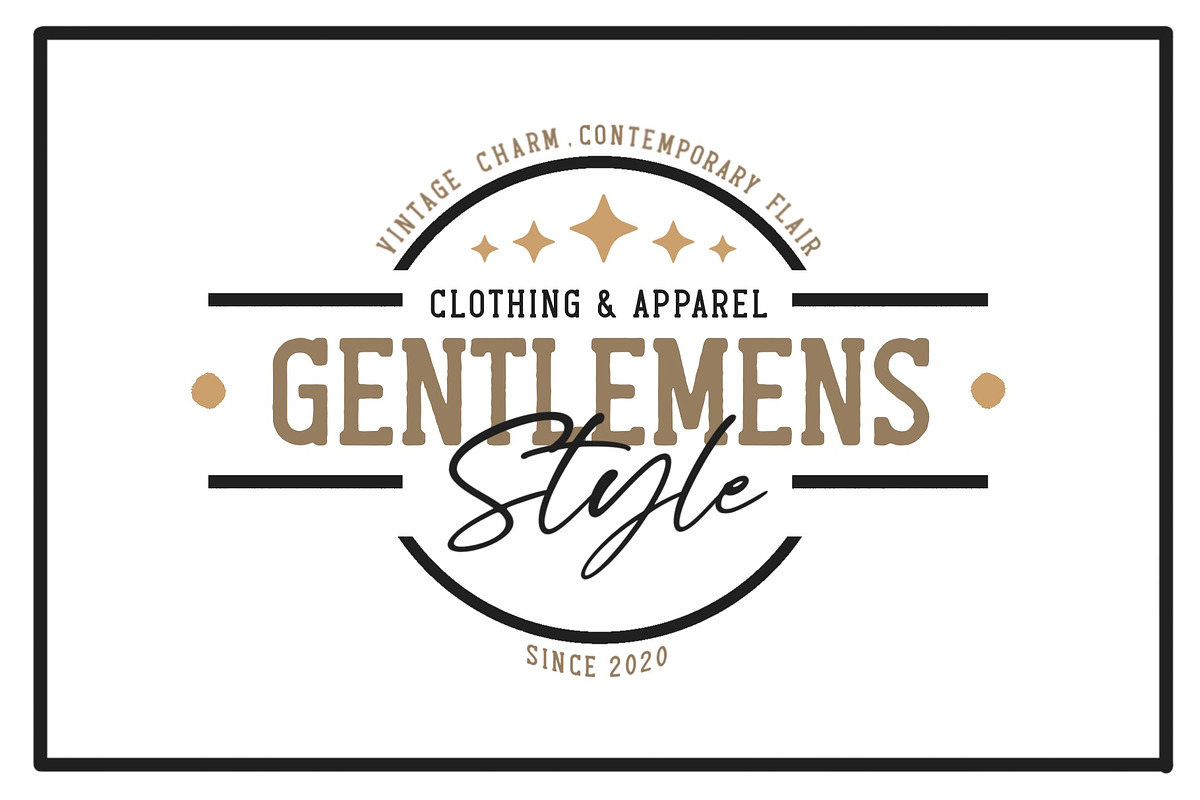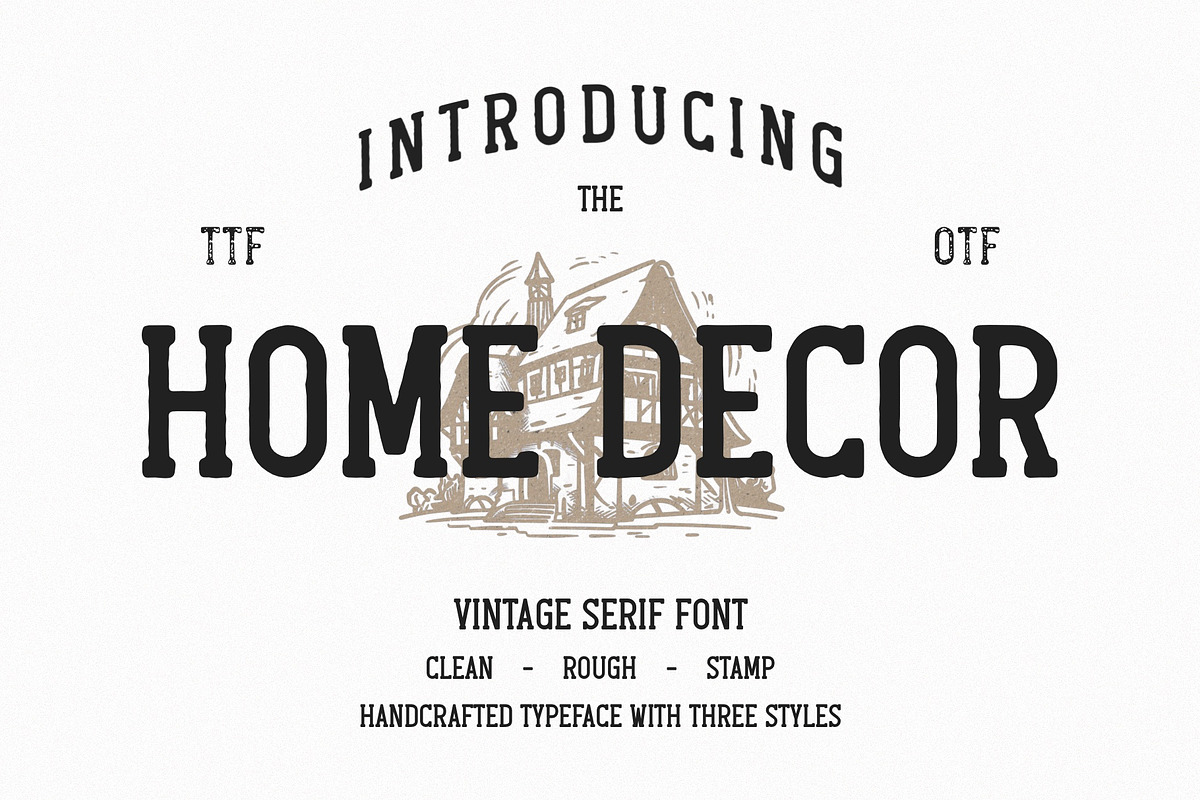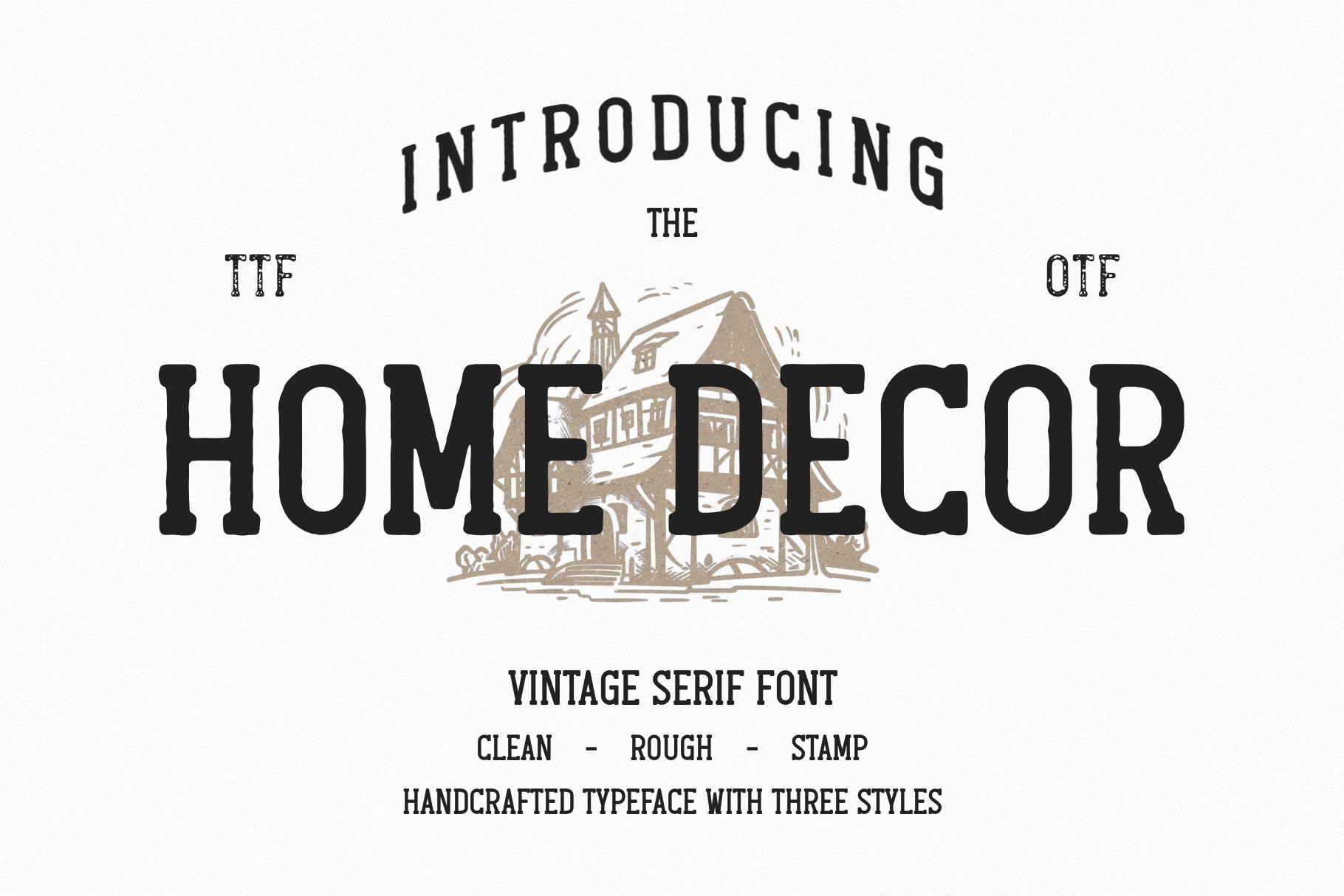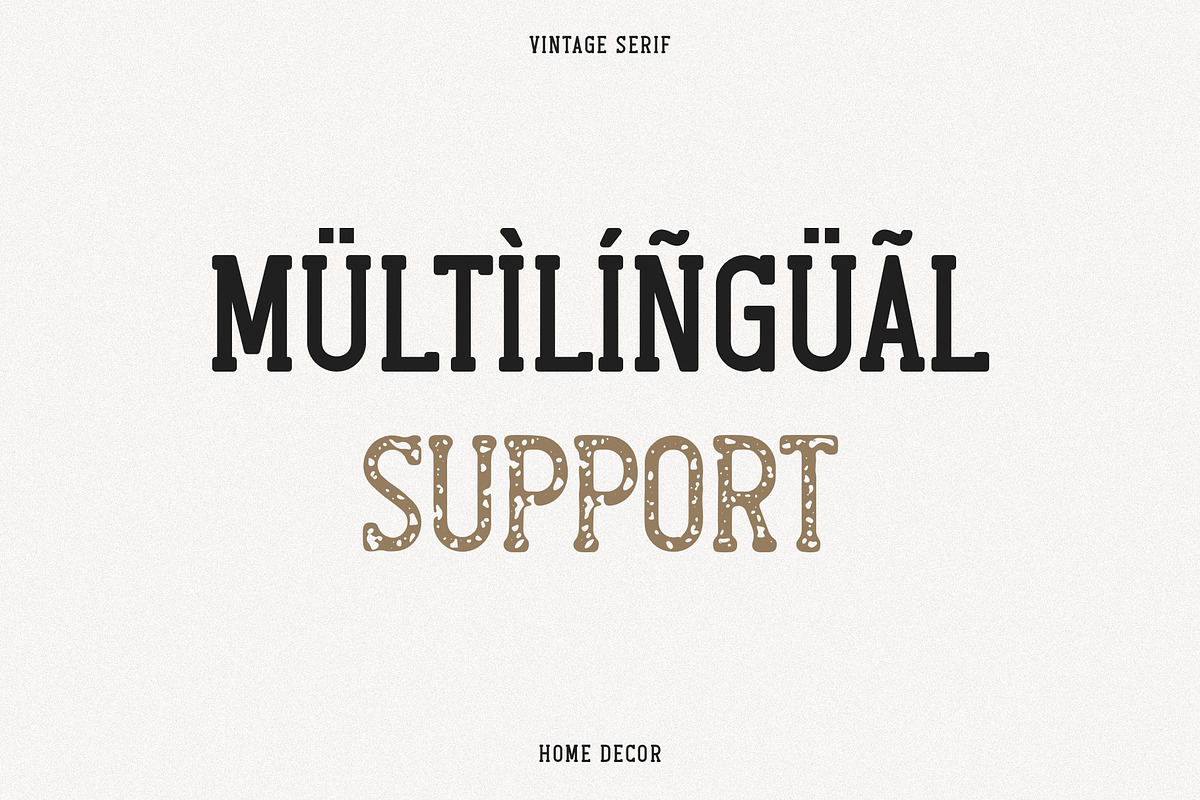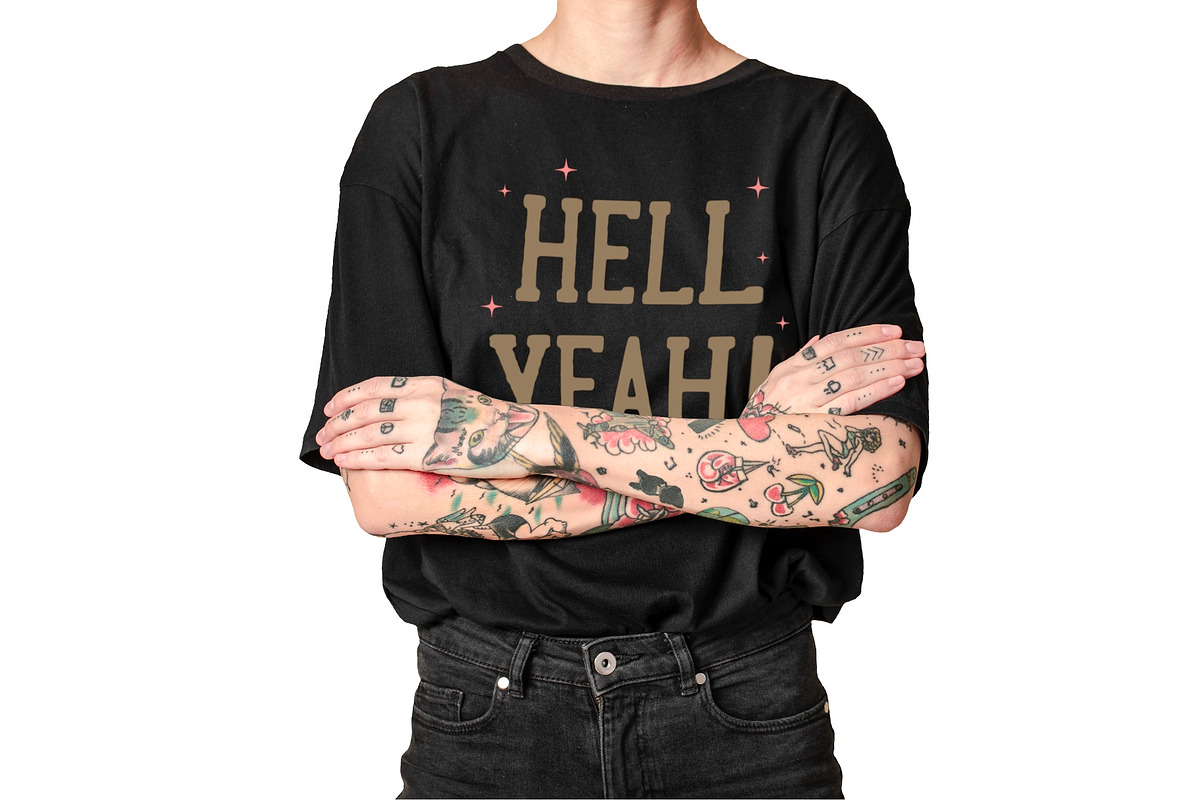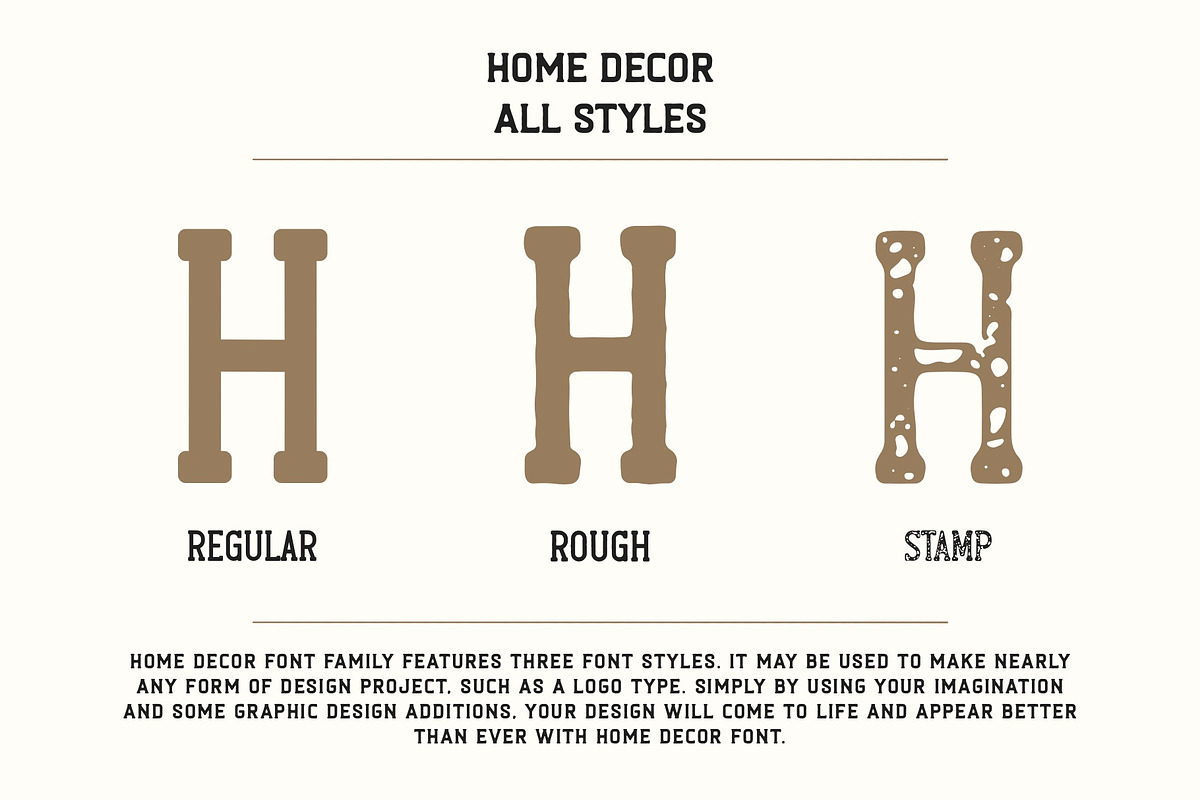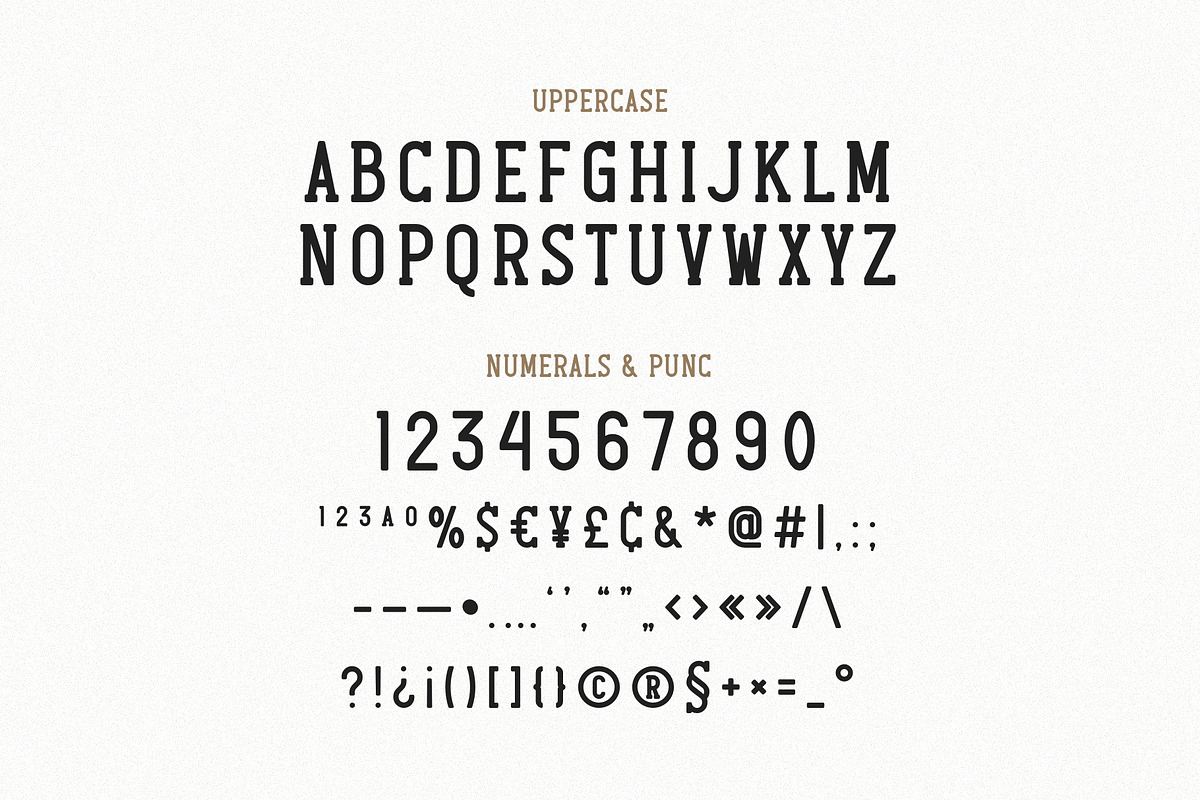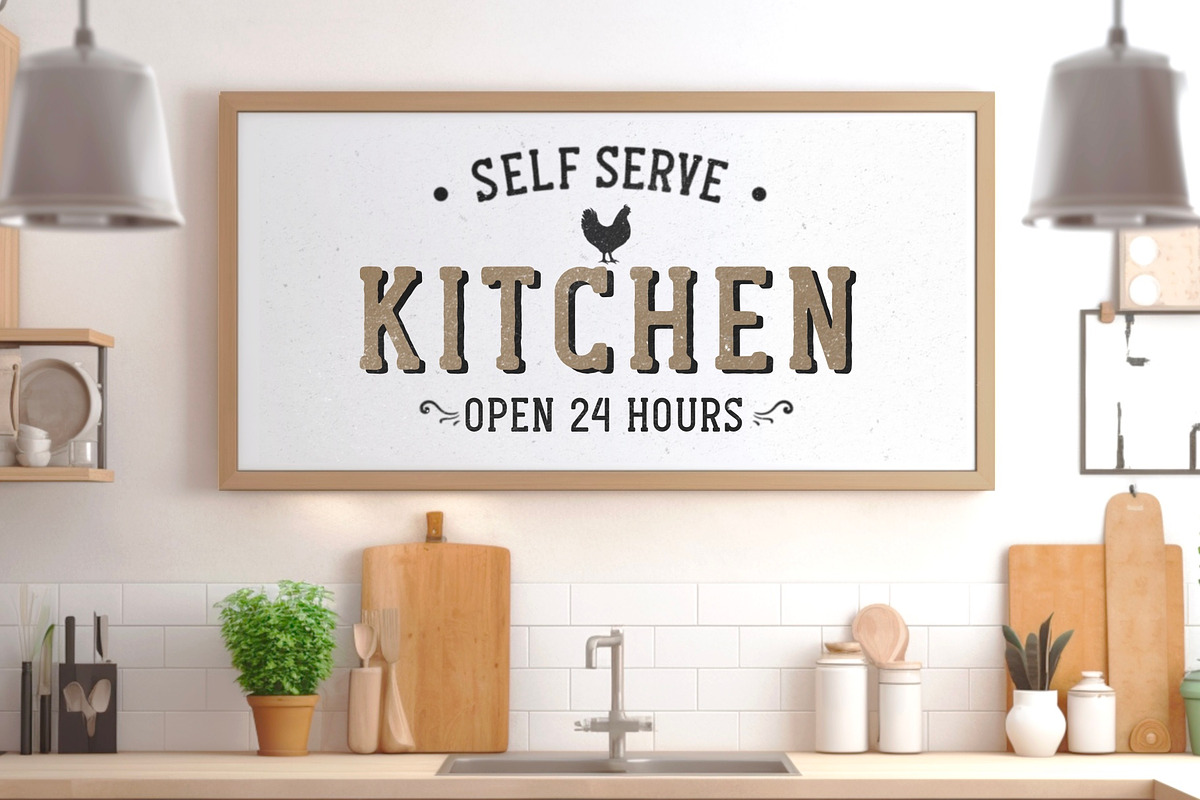
Home Decor - Vintage Slab Serif Font
Home Decor is a vintage slab serif handwritten font style that captures the essence of rustic decor and retro aesthetics. This font product is designed to add a touch of warmth, character and personality to any design project related to home decor or vintage lifestyle. The handcrafted look and feel of Home Decor gives it a unique charm and makes it perfect for creating eye-catching headlines, logos, branding materials, posters, packaging designs and more.
Its distinctive slab serif design gives it a bold and strong presence, while the handwritten style adds a touch of personalization and authenticity. With its timeless and versatile style, Home Decor is an ideal font product for anyone looking to create a vintage-inspired design with a modern twist.